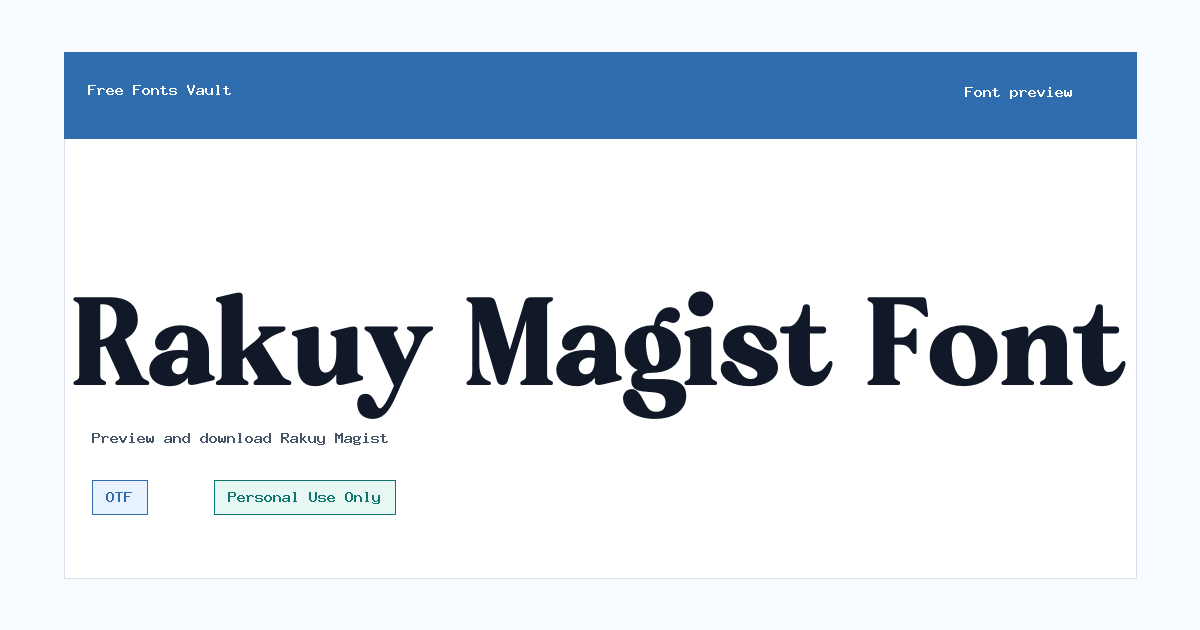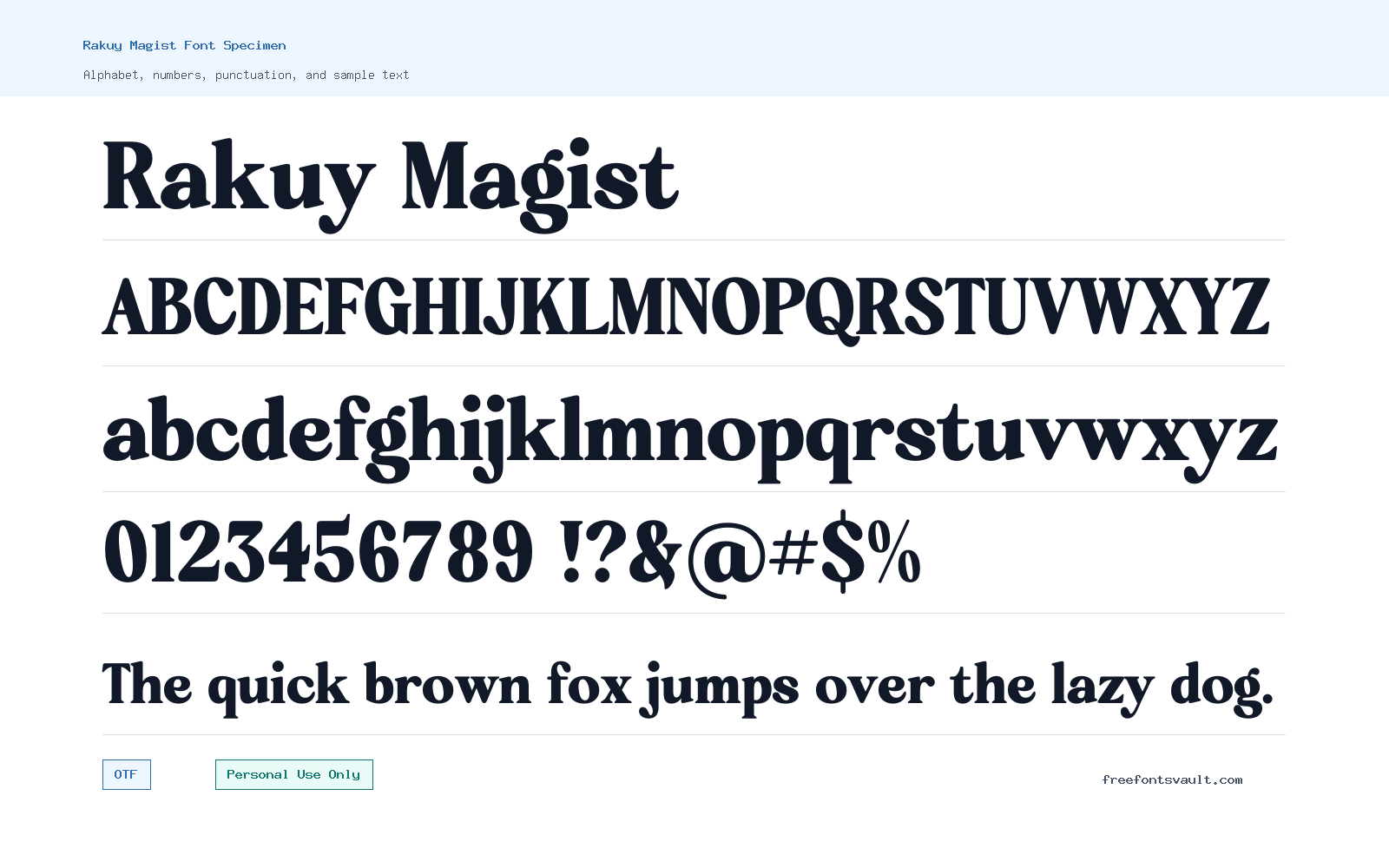
Rakuy Magist
- Designer Heru Utama Putra
- Foundry TimelessType
Rakuy Magist is a serif font from Heru Utama Putra and TimelessType. It is best treated as a display-focused typeface for personal projects, especially when you want lettering with a more decorative serif mood than a plain text font.
About Rakuy Magist
Rakuy Magist comes as a regular OTF font file with normal styling and a 400 weight. Since the font is identified as a serif design, it should work best where the shape of the letters can be seen clearly: titles, name marks, quote graphics, invitation-style layouts, social posts, and short blocks of decorative text. Use the preview box to check the exact character shapes before downloading, because serif display fonts can feel very different depending on the word, letter spacing, and size.
- Serif design suited to previewing in headings, short titles, and decorative text
- Personal-use posters, quote images, invitations, and display headings
- Testing logo concepts, name treatments, and short social graphics
Rakuy Magist is credited to Heru Utama Putra, with TimelessType listed as the foundry.
Before using Rakuy Magist in finished artwork, type your own text in the preview and check spacing, punctuation, numbers, and any accented characters you need. Keep it for short display text if the details become hard to read at small sizes. For layouts with more text, pair it with a neutral companion font so Rakuy Magist can stand out without carrying the whole design.
What type of font is Rakuy Magist?
Rakuy Magist is identified as a serif font. It is best tested for display use such as titles, name designs, posters, and short decorative text.
Who designed Rakuy Magist?
Rakuy Magist is credited to Heru Utama Putra, with TimelessType listed as the foundry.